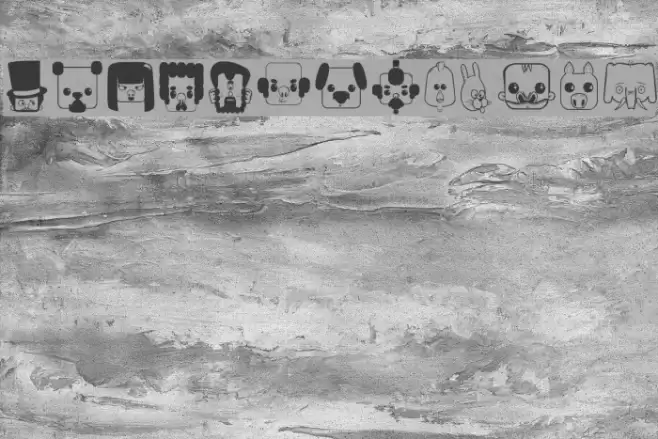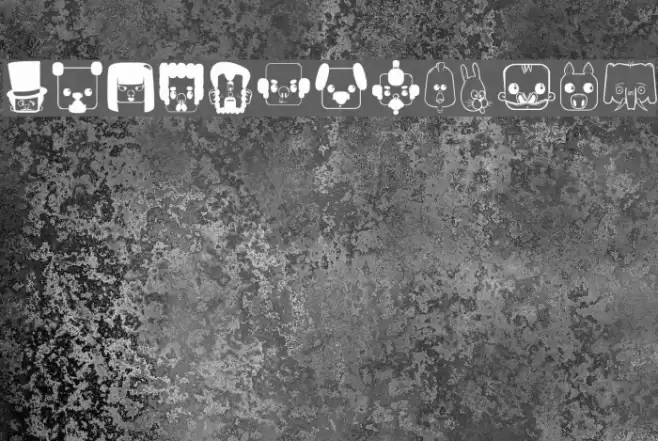
bubbledco Font
bubbledco Description
A playful, decorative font composed of cartoon-style character faces for letters and numbers, featuring bold outlines and whimsical expressions. Each glyph is a unique illustration, making the set highly distinctive and visually engaging.
Cartoonish, character-based decorative font with bold outlines from Uncategorized fonts.
- Proposed Projects: Children’s books, playful branding, party invitations, posters, comics, educational materials.
- Overall Style: Playful, Whimsical, Decorative
- Use Case: Logos, Posters, Headlines, Children’s materials